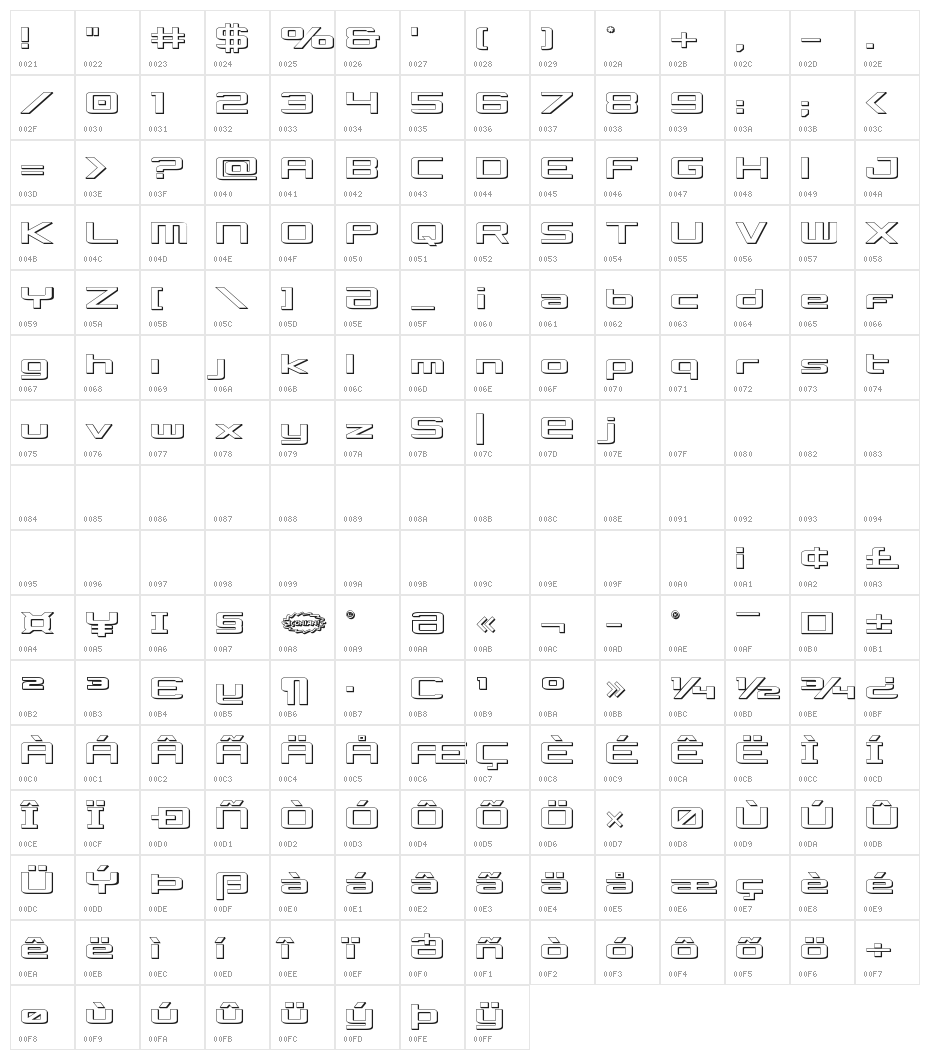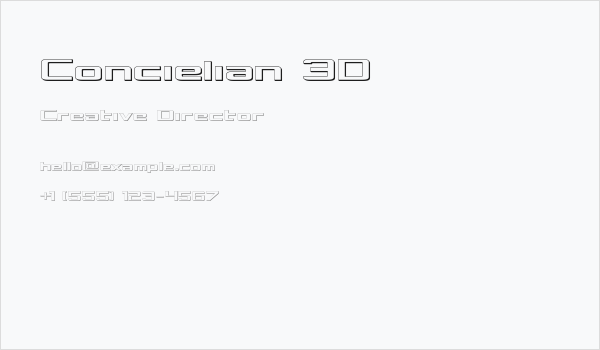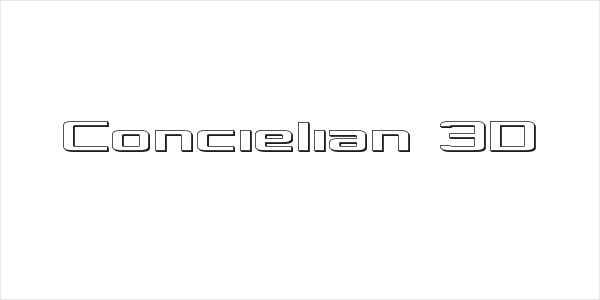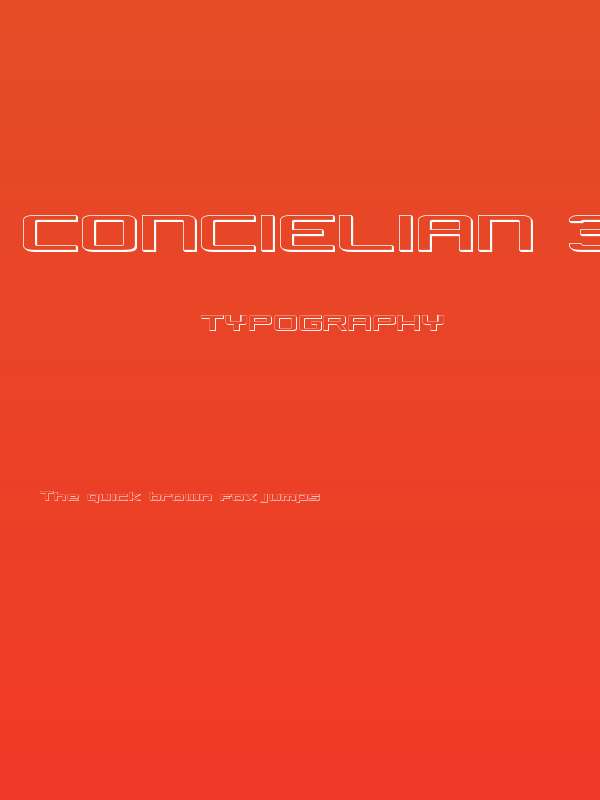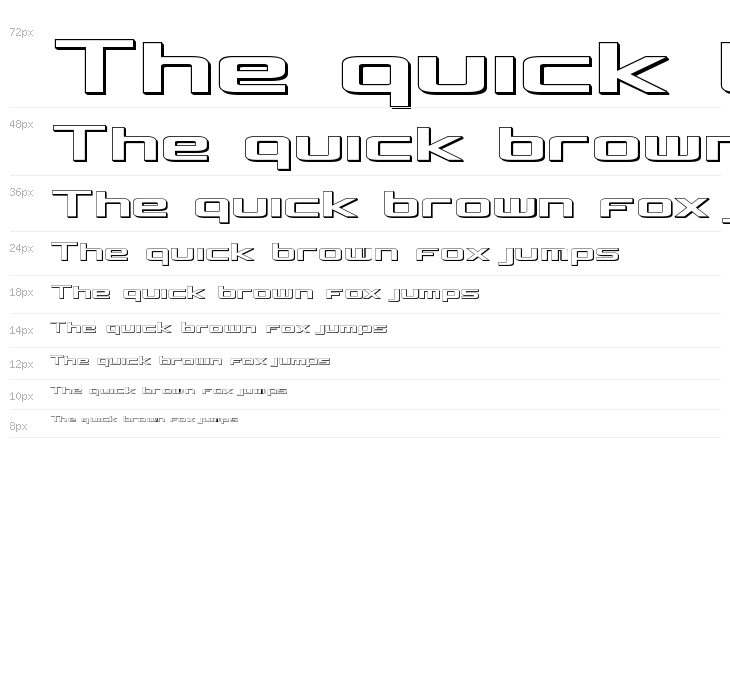
Concielian 3D Font
Concielian 3D Description
This font features a distinct 3D outline style, giving each character a sense of depth and dimension. The uppercase and lowercase letters maintain a consistent geometric structure, with clean lines and sharp angles. The numerals and special characters follow the same design principles, ensuring uniformity across all elements. The font's open and airy design makes it visually striking, suitable for creating a modern and futuristic aesthetic. Its unique style is ideal for projects that require a bold statement, while still maintaining readability.
CONCIELIAN-3D UPPERCASE
CONCIELIAN-3D LOWERCASE
CONCIELIAN-3D OTHER CHARS
| Proposed Projects | Ideal for futuristic designs, tech branding, video game titles, and digital art projects. |